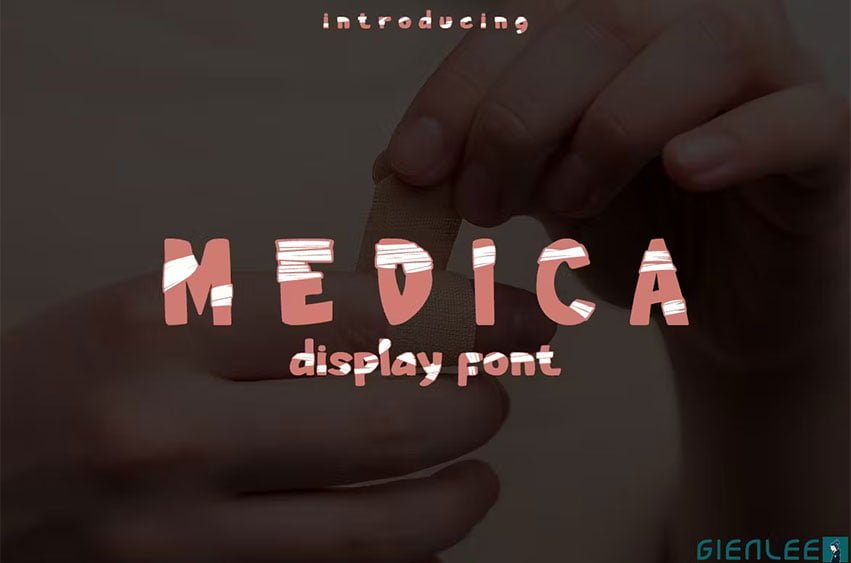
Medica Font cartoon, design, and other artworks. Medica is Display Font. Commonly used for healthy kind stuff of life. It’s like bandage like font for medical purpose.